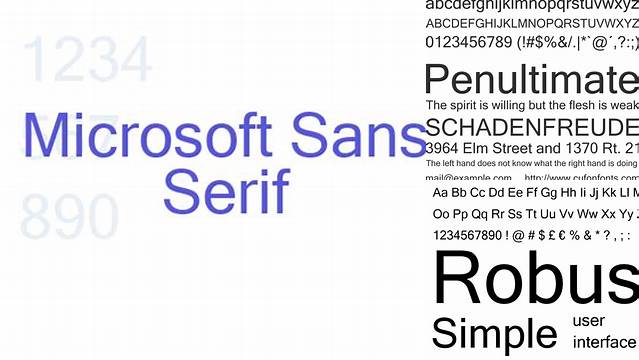
Are you on the hunt for the Microsoft Sans Serif font? Well, you've come to the right place, guys! This font, known for its legibility and clean design, has been a staple in the digital world for years. Whether you're a seasoned designer or just someone looking to spice up your documents, understanding where to find and how to use this font is super important.
What is Microsoft Sans Serif?
Before we dive into the nitty-gritty of downloading, let's get to know Microsoft Sans Serif a bit better. This font is a TrueType font that was first introduced with Windows 2000. It's a part of the Arial family and is often used as the default system font in many Windows applications. Its design is optimized for screen readability, making it a popular choice for user interfaces, documents, and web content. What makes Microsoft Sans Serif stand out is its neutral and clean appearance. It doesn't scream for attention but quietly ensures that your text is readable and professional-looking. This makes it incredibly versatile for various applications, from formal documents to casual web designs. Think of it as the reliable friend you can always count on – it just works! The font's design characteristics include a relatively large x-height, which enhances readability, and a consistent stroke weight that provides a balanced appearance. These features contribute to its suitability for long blocks of text and smaller font sizes, ensuring that your content remains legible across different devices and screen resolutions. Moreover, Microsoft Sans Serif supports a wide range of characters, including Latin, Greek, and Cyrillic alphabets, making it a practical choice for multilingual projects. This broad language support allows you to communicate effectively with a global audience without worrying about font compatibility issues. In essence, Microsoft Sans Serif is more than just a font; it’s a workhorse that quietly powers the visual aspects of countless digital interfaces and documents. Its blend of functionality and simplicity makes it an essential tool in any designer’s or content creator’s arsenal. Whether you are drafting a critical business report, designing a user-friendly application interface, or creating engaging web content, this font ensures that your message is conveyed clearly and professionally. So, you can see why having access to Microsoft Sans Serif can be a game-changer for your projects!
Why Use Microsoft Sans Serif?
So, why should you even bother with Microsoft Sans Serif? Great question! There are tons of fonts out there, but this one has some serious advantages. First off, it's highly readable, making it perfect for body text. No one wants to squint and struggle to read your content, right? Plus, its clean and simple design means it won't clash with other design elements. It's like that versatile piece of clothing in your wardrobe that goes with everything. Another big win is its wide availability. Since it's a default Windows font, it's likely already installed on many computers. This reduces the chances of font rendering issues when sharing documents or designs. Imagine sending a beautifully crafted document only to have it appear completely different on someone else's computer – nightmare! Beyond its practicality, Microsoft Sans Serif offers a certain professionalism that many other fonts lack. It’s not flashy or trendy; it’s just solid and dependable. This makes it an excellent choice for business documents, reports, and anything where you want to convey authority and clarity. Think about it: when you see a document in a clear, readable font, you're more likely to take the content seriously. Furthermore, the font’s compatibility across different platforms and software is a major benefit. Whether you’re using Microsoft Word, Adobe Photoshop, or a web design tool, Microsoft Sans Serif will work seamlessly. This consistency is crucial for maintaining a uniform look and feel across all your projects. In the world of design, consistency builds trust and reinforces your brand’s identity. Lastly, let’s not forget the ease of use. Microsoft Sans Serif is straightforward and uncomplicated, making it accessible to both beginners and experienced designers. You don’t need to be a font guru to use it effectively. It’s a font that simply does its job without any fuss, allowing you to focus on your content and message. So, if you’re looking for a font that’s readable, versatile, professional, and widely available, Microsoft Sans Serif is definitely worth considering. It might not be the flashiest font in the world, but its reliability and practicality make it a valuable asset for any project.